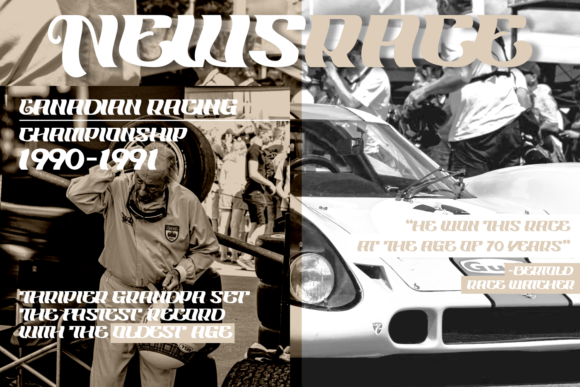
Onthel: A Modern and Cool Slab Serif Font
Onthel is a modern and cool slab serif font with several faces including racing, retro, and elegant styles. With its bold shape and beautiful alternate stylistics, this font can look both striking and exquisite. Onthel is perfect for a wide range of projects, from branding and logos to wedding designs and social media posts.
Key Features of Onthel
- Versatile Design: Offers racing, retro, and elegant styles suitable for various applications.
- Slab Serif Structure: Features thick, rectangular serifs typical of slab serif fonts.
- Bold and Exquisite: Combines a strong presence with beautiful alternate stylistics.
Ideal Uses for Onthel
Onthel’s unique characteristics make it particularly well-suited for:
- Logo design and branding
- Wedding designs and invitations
- Social media posts and advertisements
- Product packaging and labels
- Photography watermarks
- Stationery and unique typography projects
- Retro-inspired designs
When incorporating Onthel into your designs, consider these tips:
- Experiment with different styles to match your project’s mood: racing, retro, or elegant.
- Utilize the alternate stylistics to create unique and eye-catching designs.
- Consider pairing with simpler sans-serif fonts for body text to create contrast.
Onthel is an excellent choice for designers looking to add a versatile and modern slab serif font to their typographic toolkit. Its ability to adapt to various styles while maintaining a strong presence makes it stand out in the world of typography. Whether you’re working on branding projects, creating wedding invitations, or developing content that requires a unique touch, Onthel offers the perfect blend of boldness and elegance.
Furthermore, Onthel’s unique design allows it to shine in various contexts. From racing-inspired designs to more elegant layouts that need a touch of sophistication, this font can elevate your projects. Its striking yet flexible style works particularly well in designs that require a thoughtful and engaging mood.
In conclusion, Onthel is a font that truly captures the essence of creativity and impact in typography. Its ability to work well in both bold projects and more refined layouts showcases its versatility. For those looking to add a touch of unique charm to their work, Onthel can enhance themed creations with its distinctive style. It’s the perfect choice for designers seeking to make a strong, stylish impact across a wide range of creative projects.